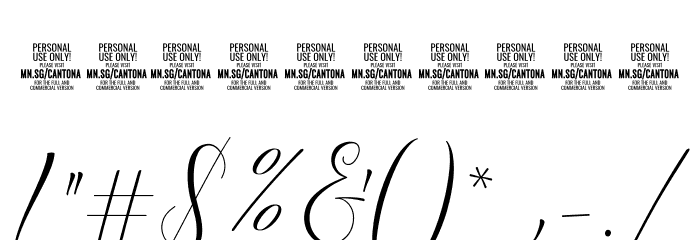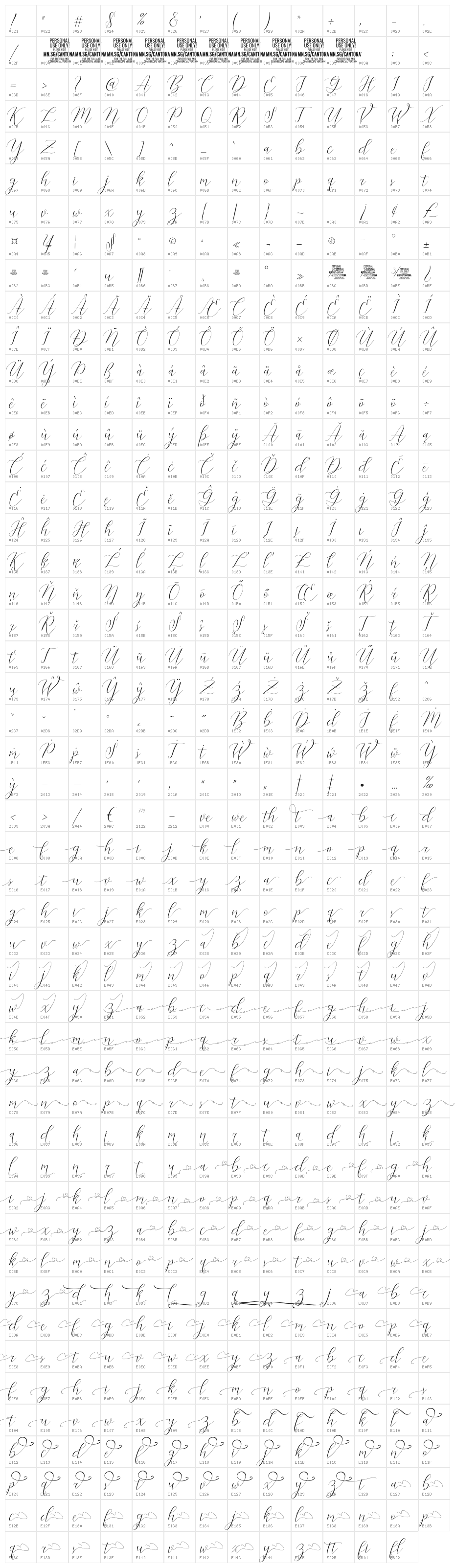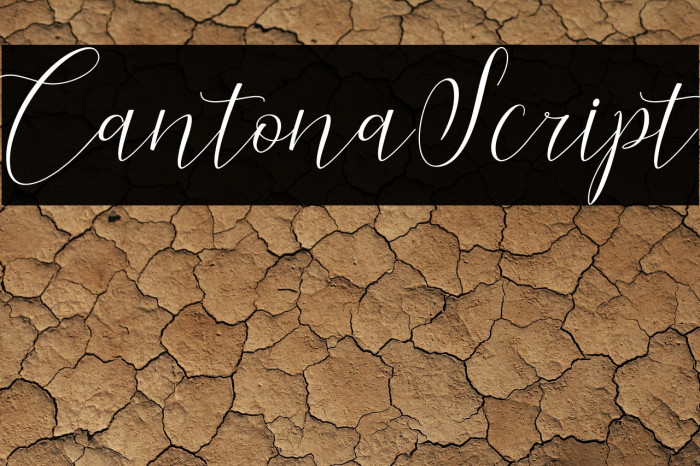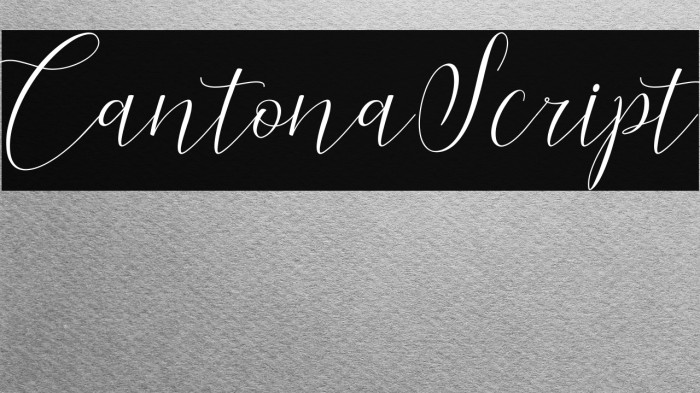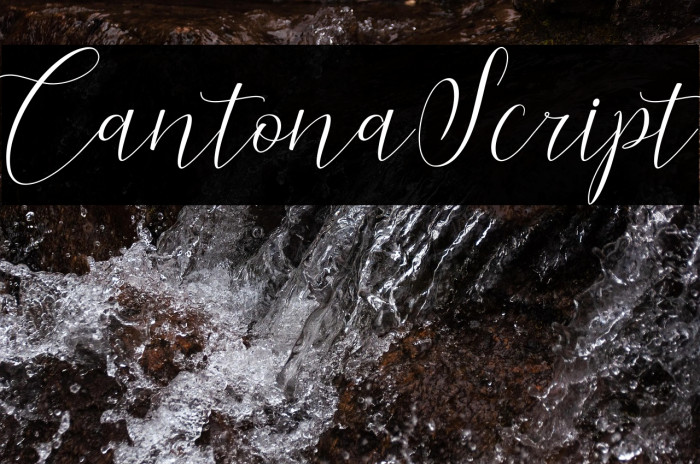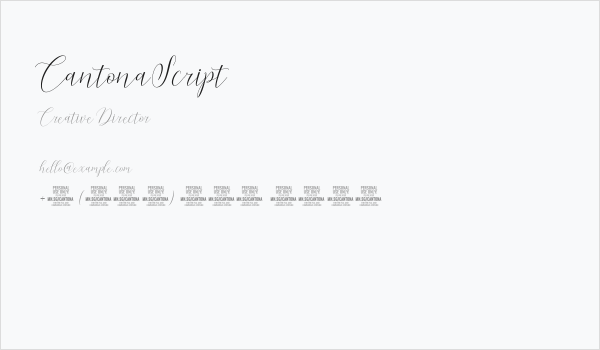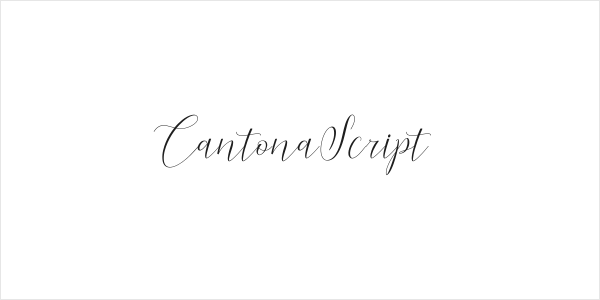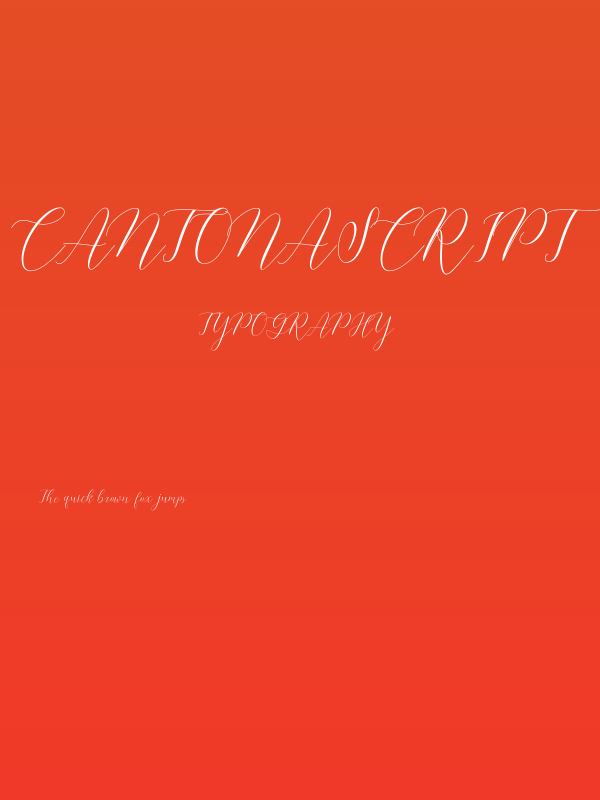
CantonaScript Font
CantonaScript Description
This elegant script font features flowing, interconnected letters that exude a sense of sophistication and grace. The uppercase letters are tall and slender, with sweeping curves and delicate flourishes that add a touch of drama. The lowercase letters maintain a consistent slant, enhancing the fluidity and continuity of the script. The numerals and special characters are designed with the same attention to detail, ensuring a cohesive look across all elements. This font is perfect for projects that require a personal, handwritten touch, such as invitations, greeting cards, and branding materials.
| Proposed Projects | Ideal for wedding invitations, elegant branding, personal stationery, and decorative quotes. |